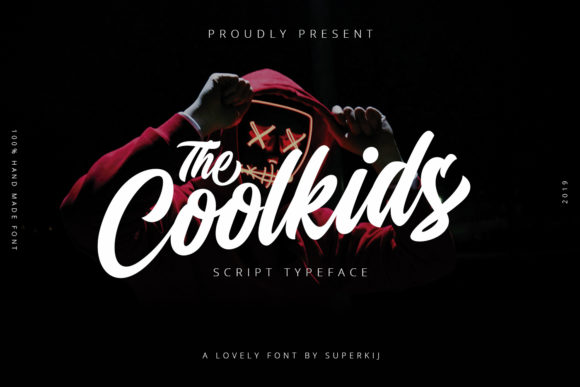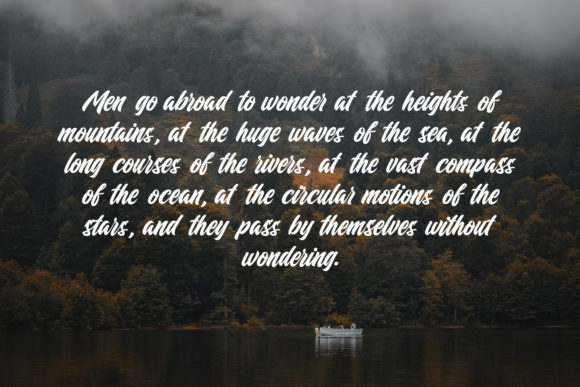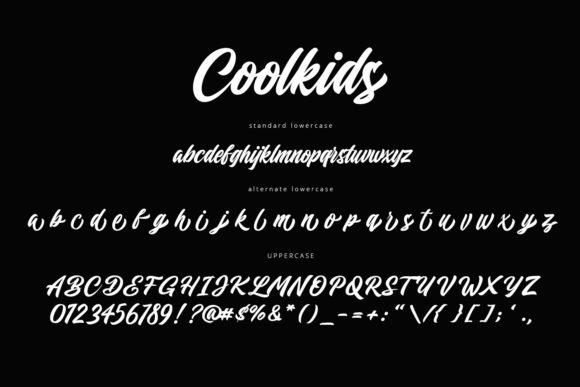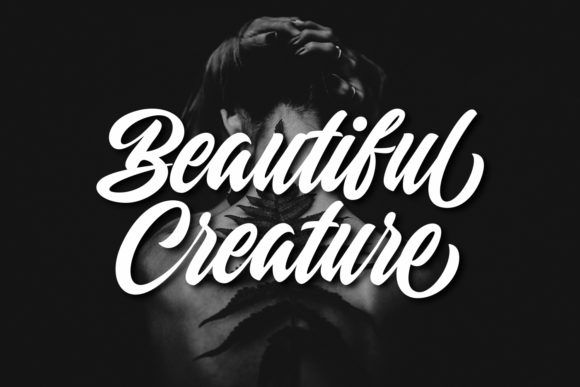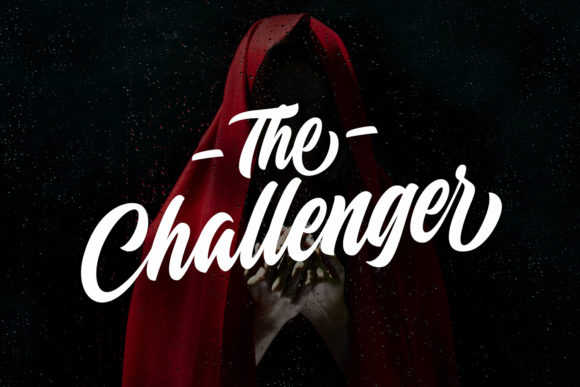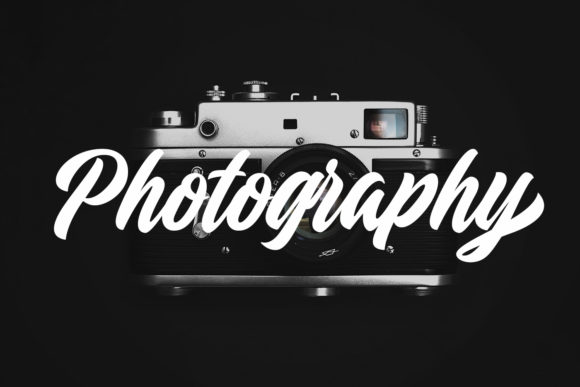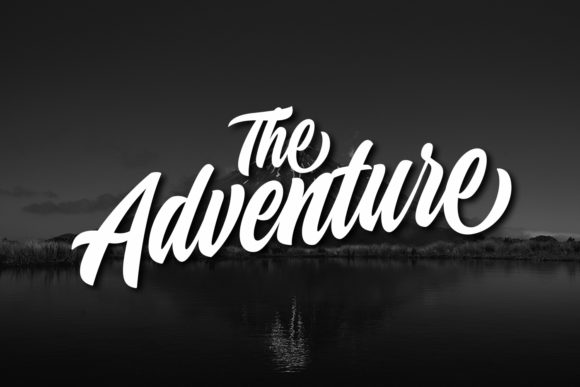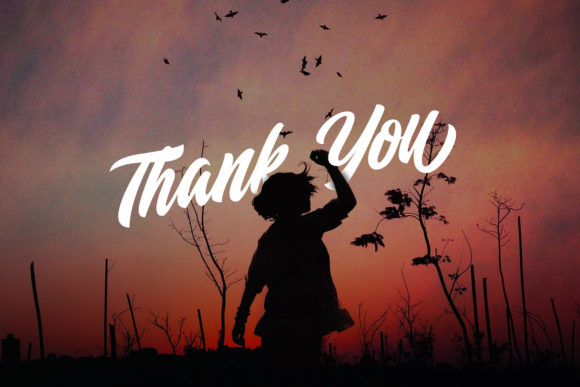
Coolkids Font
About Coolkids Font
Coolkids is a modern and amazing script font. It has a clear and strong feel that will take any crafting design to the next level.